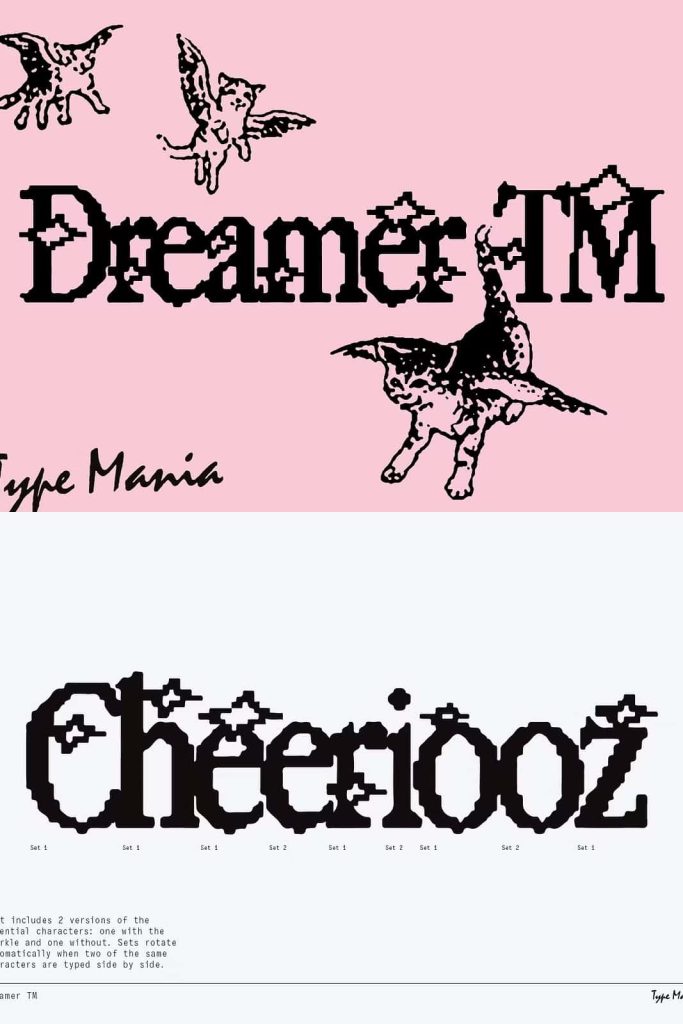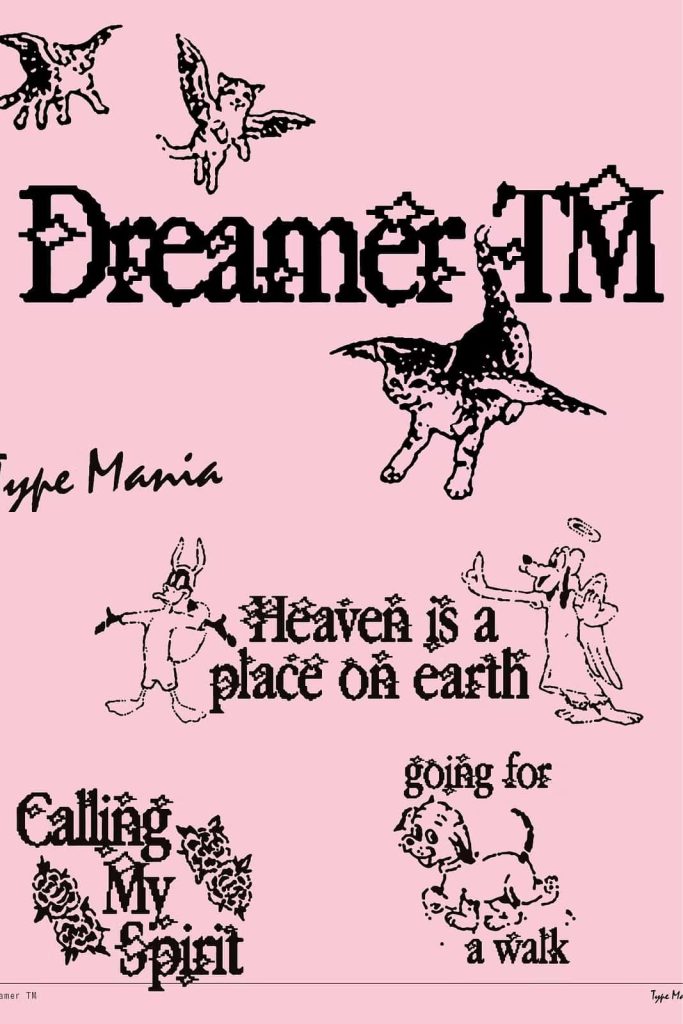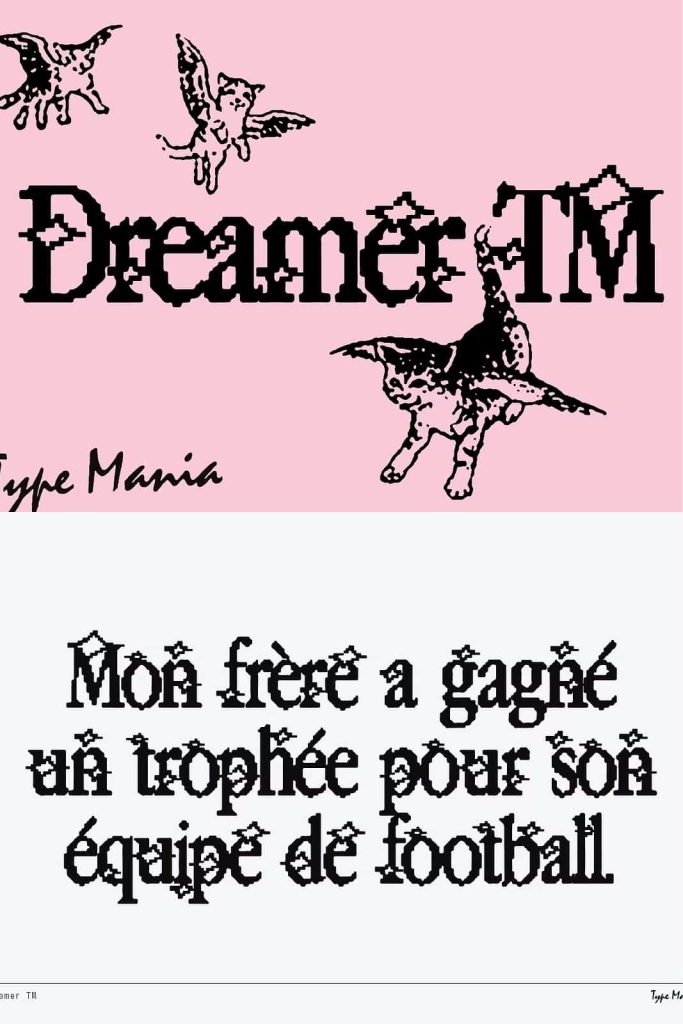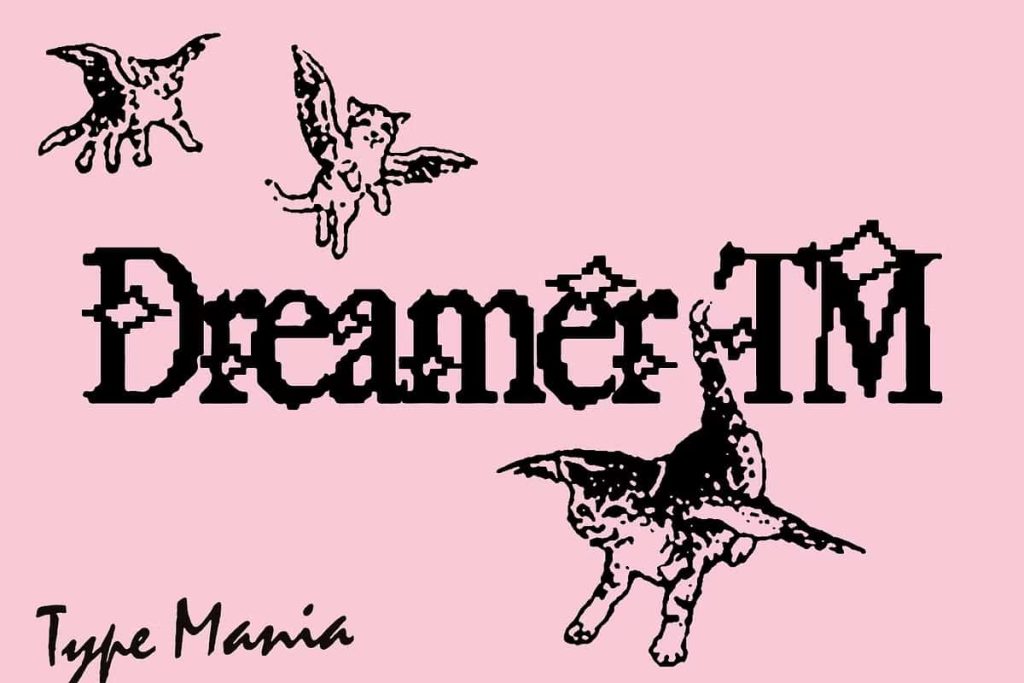
Dreamer TM – An Emotive Serif Font Inspired by the Y2K Aesthetic
Dreamer TM is a beautifully expressive serif font that transports you into a world of nostalgia, emotion, and imagination. Inspired by the iconic Y2K aesthetics of the early 2000s, this typeface merges retro charm with modern sophistication. Its bold personality and elegant details make it a powerful choice for designers who want to evoke emotion, creativity, and visual impact in their work.
Every curve and serif in Dreamer TM reflects a sense of fantasy and fluid motion. Whether used in large headlines, artistic posters, or stylish branding projects, this typeface stands out with its distinctive rhythm and expressive flair. It’s designed for creators who dream big and want their designs to reflect both nostalgia and innovation.
A Typeface that Captures Emotion and Nostalgia
Dreamer TM serif font embodies the spirit of the Y2K era—a time of optimism, experimentation, and digital discovery. With its smooth curves and bold edges, the typeface brings a balance of futuristic ambition and sentimental beauty. The letters flow seamlessly, giving your text a sense of energy and emotional depth that captures attention instantly.
This typeface goes beyond simple aesthetics—it tells a story. Dreamer TM revives the emotional tones of early digital culture while adapting perfectly to contemporary design standards. Whether you’re creating a logo, editorial headline, or visual identity, it adds a unique mood that blends the past with the present.
Perfect for Posters, Logos, and Nostalgic Branding
Dreamer TM was designed with versatility in mind, making it suitable for a variety of creative applications. Its striking letterforms, expressive proportions, and elegant structure make it an excellent choice for:
- Posters and Album Covers: Capture attention with powerful typography that radiates emotion and nostalgia.
- Logo Design: Create unique, memorable brand marks that combine sophistication and creativity.
- Editorial Layouts: Use Dreamer TM to craft stunning magazine titles, articles, and visual stories.
- Branding Projects: Add a nostalgic yet contemporary touch to your visual identity and marketing materials.
- Web and Digital Design: Enhance your online presence with typography that stands out in both bold and minimalist layouts.
Dreamer TM’s emotional resonance makes it ideal for projects that aim to connect with audiences on a deeper level. Its versatility allows it to adapt beautifully to both vintage and futuristic design directions, depending on how you pair and style it.
Key Features of Dreamer TM Typeface
- Y2K-Inspired Design: A unique blend of retro-futuristic curves and classic serif details.
- Emotive Letterforms: Elegant shapes that convey personality, nostalgia, and creativity.
- High Versatility: Works equally well in print, digital, and branding projects.
- Strong Visual Presence: Perfect for headlines, titles, and large-format design.
- Modern Adaptability: Combines vintage flair with contemporary usability.
Channeling the Spirit of the Early 2000s
The early 2000s—an era defined by bold design choices, chrome aesthetics, and playful optimism—serve as the foundation of Dreamer TM. This font captures that iconic mood while refining it for modern use. It embodies the hopeful and artistic energy of the Y2K movement, reimagined for today’s creative landscape.
Its emotive quality allows it to express feelings of wonder, fantasy, and individuality. When you use Dreamer TM, your typography becomes more than just text—it becomes an artistic statement. It invites viewers to dream, to feel, and to remember, making it the perfect font for projects that seek emotional connection and visual impact.
Why Designers Love Dreamer TM Serif Font
Dreamer TM serif font has quickly become a favorite among designers who want to bring nostalgia and depth into their work. It’s elegant enough for high-end branding yet bold enough for expressive, artistic layouts. The combination of smooth curvature and structured serif detailing gives it a distinctive personality that fits anywhere—from luxury campaigns to creative portfolios.
Designers choose Dreamer TM because it offers the best of both worlds: vintage influence and modern refinement. It provides a creative playground where emotion and design meet, helping you craft visuals that leave a lasting impression.
Conclusion
Dreamer TM is more than a typeface—it’s a journey through nostalgia, creativity, and artistic expression. Rooted in Y2K aesthetics yet designed for the modern world, it brings emotion and style to every design it touches. Whether you’re creating a poster, designing a logo, or developing a brand identity, Dreamer TM adds a touch of fantasy and sophistication that transforms your work into something unforgettable. Step into the dreamlike world of this emotive serif font and let your creativity soar.